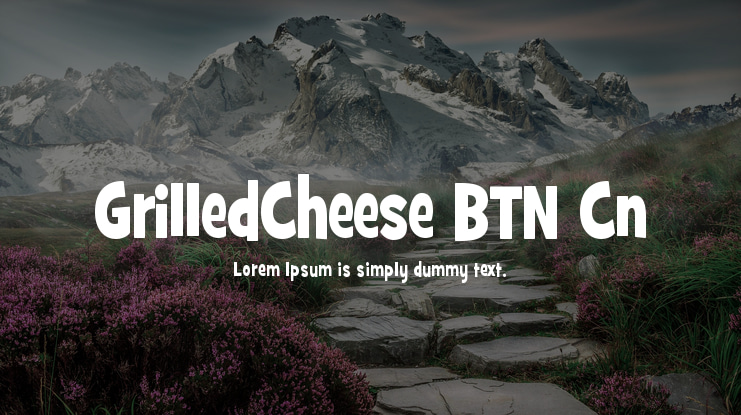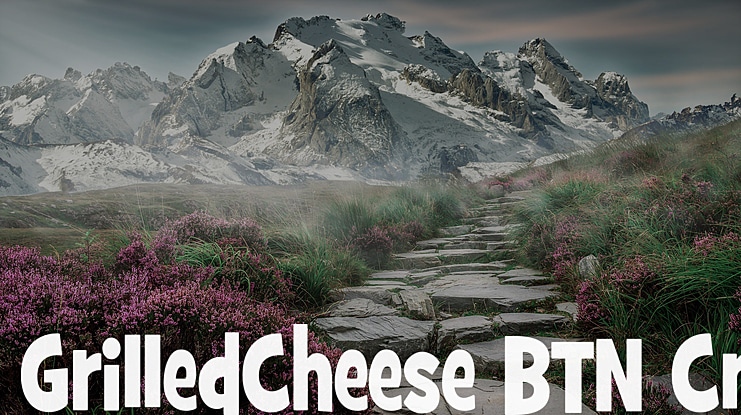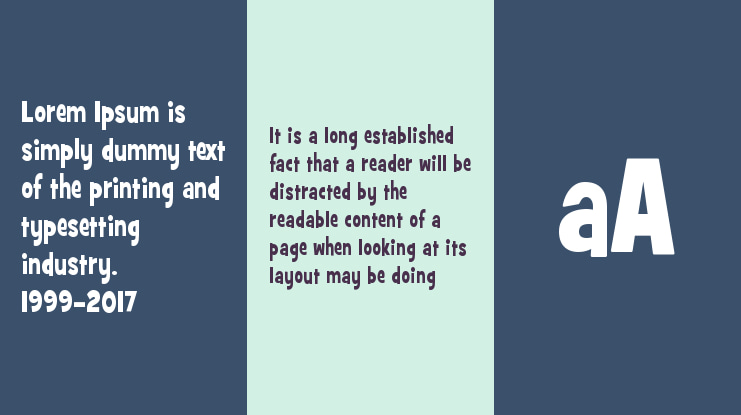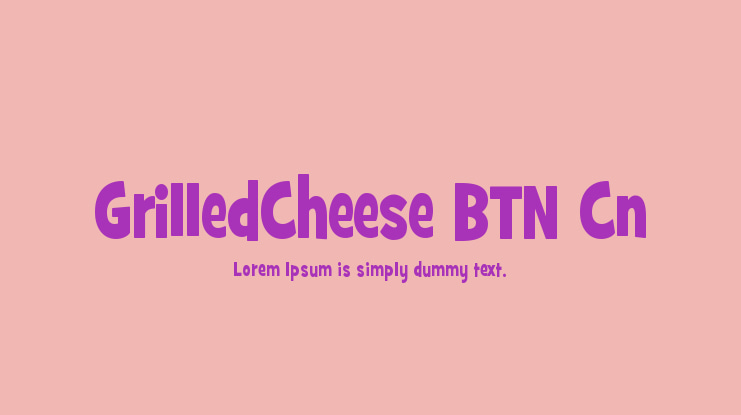
GrilledCheese BTN Cn Font Family
Grilled Cheese was cooked up to be one of the most versatile display typefaces ever created.
It makes a bold statement with its strong, easy-to-read look and keeps a playful personality.